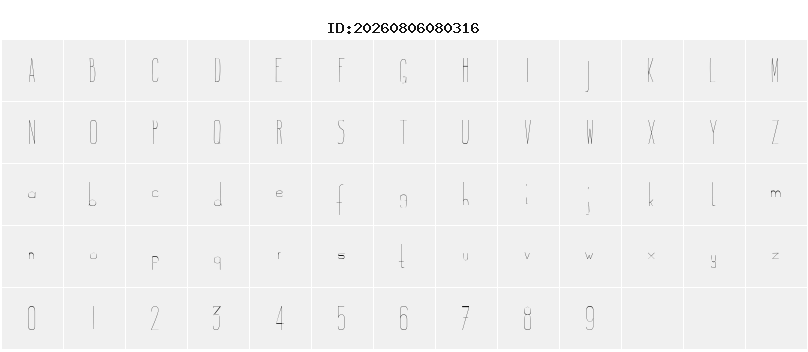
• Font Name: Ostrich
• Font Style: Condensed Light
• Full Font Name: Ostrich Condensed Light
• Designer: Patric Sterrantino
Ostrich.ttf is a modern, elegant sans-serif font designed for ultimate readability and visual harmony. Perfect for branding, headlines, web design, and print materials.